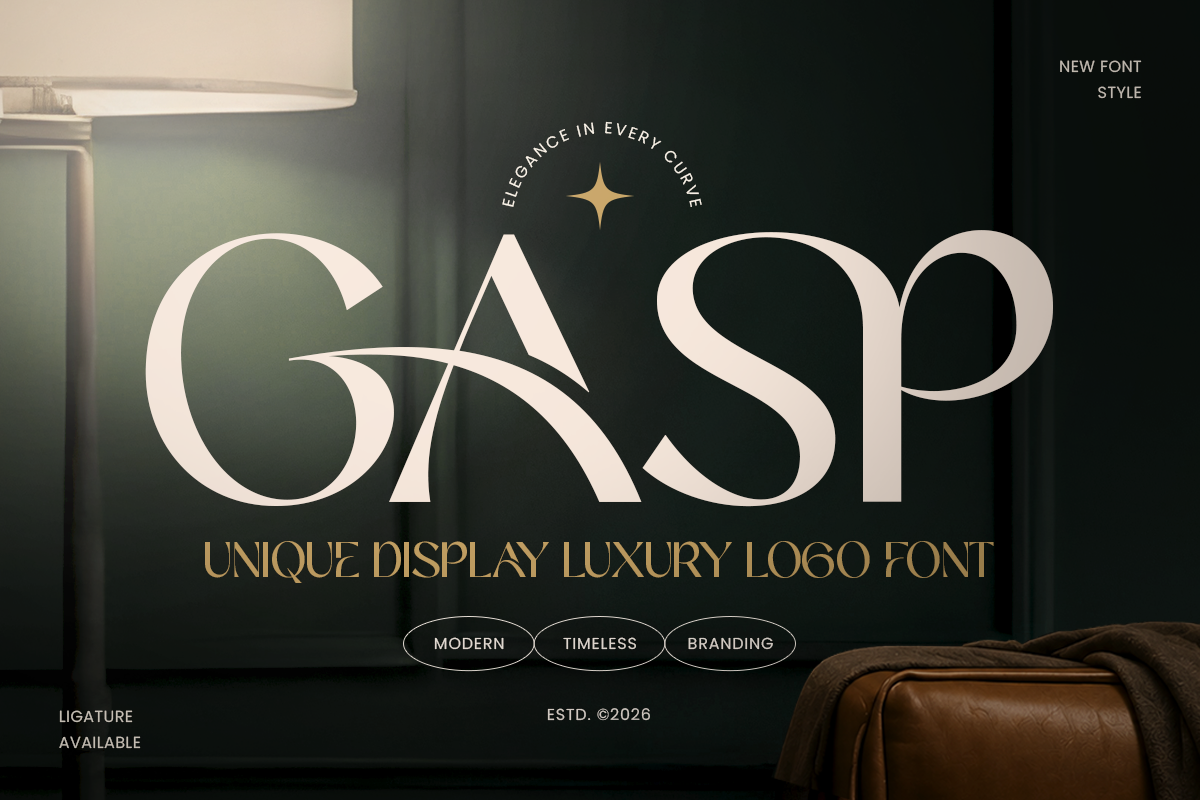
GASP
-Unique Display Luxury Logo FontGASP – Unique Display Luxury Logo Font
GASP is a unique display luxury logo font designed to create a powerful and sophisticated brand presence. With its distinctive letterforms, elegant structure, and premium visual character, GASP brings a refined aesthetic that is perfect for brands seeking a memorable and exclusive identity.
Designed for luxury branding, logo design, packaging, fashion labels, boutique businesses, and creative projects, GASP delivers a stylish appearance that works beautifully across digital and print media. Its unique display style makes it ideal for headlines, brand marks, posters, social media visuals, and premium marketing materials.
Inspired by modern luxury trends and timeless typography, GASP combines artistic personality with professional elegance. This versatile logo font helps designers build strong visual identities with a sophisticated and high-end atmosphere.
GASP – Unique Display Luxury Logo Font Features
Unique display letterforms with luxury branding appeal
Designed for logos, brand identity, and premium projects
Elegant style perfect for fashion and boutique designs
Works beautifully for print and digital applications
Ideal for packaging, posters, and social media graphics